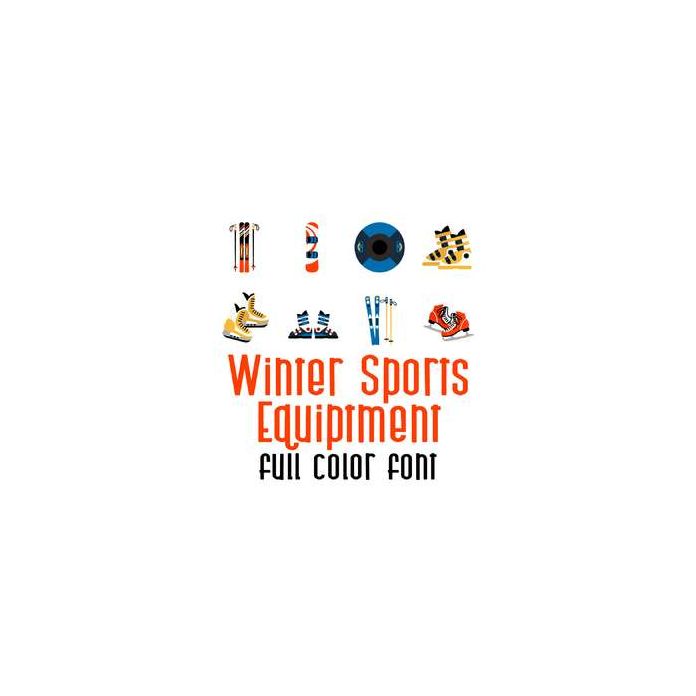
This fun full color doodlebat font features fun Winter Sport Equipment. Perfect for cards, crafts, gifts, decor, scrap book pages, planner stickers and more!